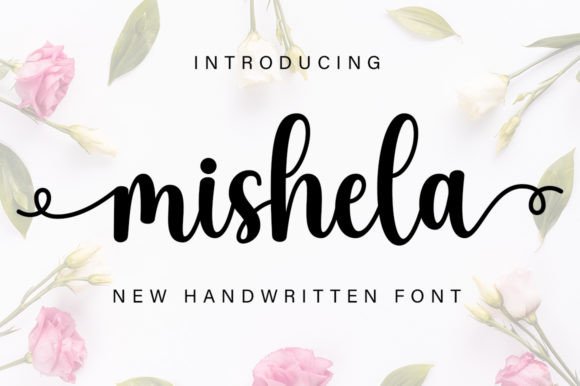
**Welcome to the World of Mishela Font: Where Creativity and Elegance Unite**
In a realm where words dance and colors intertwine, there exists a font that captivates the soul and ignites the imagination. Mishela Font, a beautiful handwritten masterpiece, beckons you on a journey of self-expression and artistic exploration. Crafted with meticulous care by DN Creative, Mishela is not just a font; it's an experience that transforms your digital creations into breathtaking works of art.
**Mishela Font: A Symphony of Elegance and Charm**
Mishela Font, with its graceful curves and delicate strokes, possesses an undeniable allure that draws you in from the very first glimpse. Inspired by the beauty of flowing water and the intricate patterns found in nature, Mishela is a symphony of elegance and charm, embodying the essence of sophistication and refinement. Whether you're designing wall displays, crafting wedding invitations, or creating captivating social media posts, Mishela adds a touch of magic that elevates your projects to new heights.
**Discover Endless Possibilities with Mishela Font**
Unleash your creativity and explore the boundless possibilities Mishela Font has to offer. With its versatility and boundless applications, Mishela seamlessly blends into any project, adding a touch of sophistication and charm. Create logos that exude professionalism and leave a lasting impression, or design advertisements that demand attention and captivate audiences. From product packaging to product designs, labels to photography, Mishela empowers you to express yourself in a myriad of ways.
**Mishela Font: The Perfect Choice for a Handcrafted Touch**
If you seek a font that exudes the warmth and charm of handwritten artistry, look no further than Mishela Font. Its carefully crafted characters evoke the feeling of a personal touch, adding a human element to your digital creations. Craft watermarks that leave an indelible mark, design invitations that radiate elegance, and create stationery that reflects your unique style. With Mishela Font, your projects will emanate a sense of authenticity and sincerity that resonates with your audience.
**Step into the Realm of Artistic Fulfillment with Mishela Font**
Mishela Font is more than just a collection of letters; it's a gateway to a world of artistic fulfillment. Whether you're a seasoned designer seeking to elevate your craft or an aspiring artist eager to express yourself, Mishela provides the perfect canvas to bring your visions to life. Embrace the beauty of Mishela Font and embark on a creative journey that will leave you inspired, fulfilled, and eager to share your creations with the world.